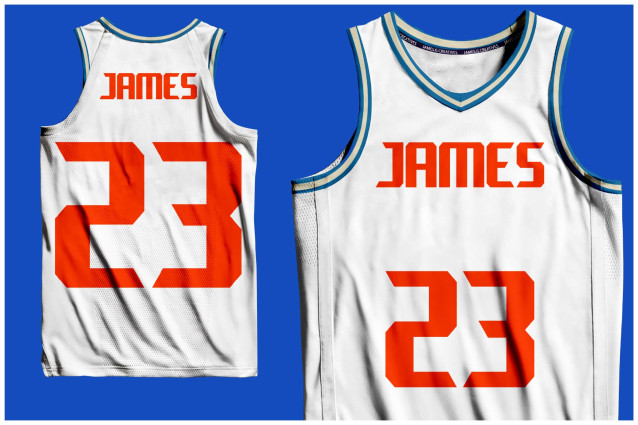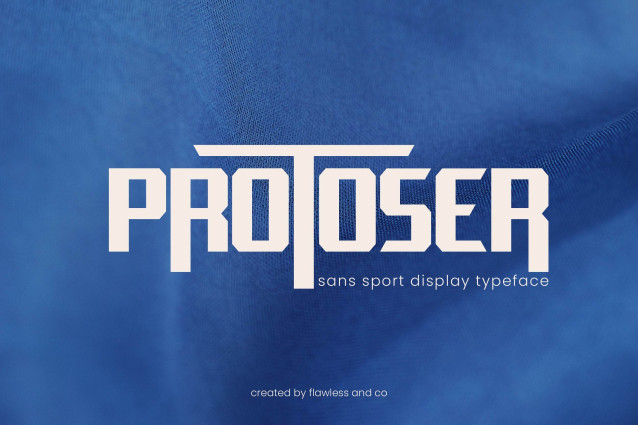
Protoser Font
Protoser Font is a bold sport typeface built to deliver strength, speed, and impact. With its powerful letterforms and athletic energy, Protoser Font brings a competitive edge to any design—perfect for sports branding, team logos, merchandise, posters, and dynamic headlines. Protoser Font exudes strength, confidence, and power, making it the perfect choice for sports logos, branding, posters, apparel design, and more. Every letter is designed to make a statement—loud, clear, and unstoppable. Inspired by the intensity of sports culture and the adrenaline of the arena, this font is made to stand tall and command attention. Its thick strokes and sharp edges ensure legibility in large-scale layouts while giving your design a bold, confident personality.